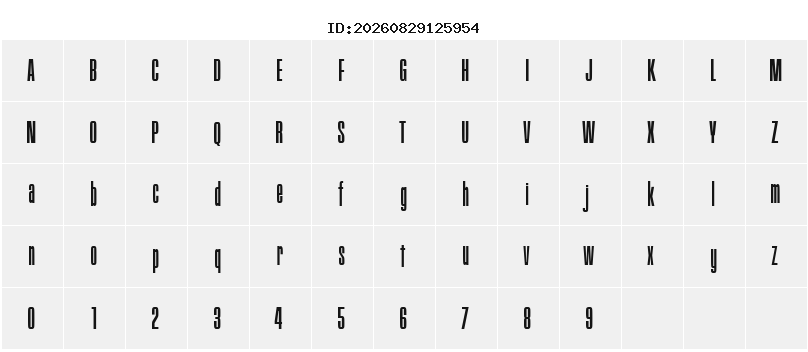
• Font Name: Thin
• Font ID: Altsys Fontographer 3.5 Thin Regular
• Full Font Name: Thin Regular
• Version: Altsys Fontographer 3.5 7/15/95
• PostScript Name: Thin Regular
• Character Count: 209
About Thin.ttf
Thin.ttf is a modern, elegant sans-serif font designed for ultimate readability and visual harmony. Perfect for branding, headlines, web design, and print materials.